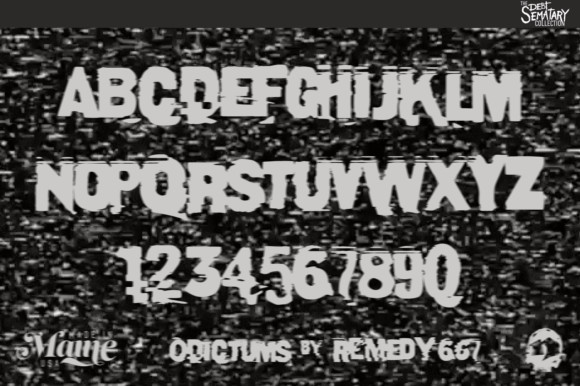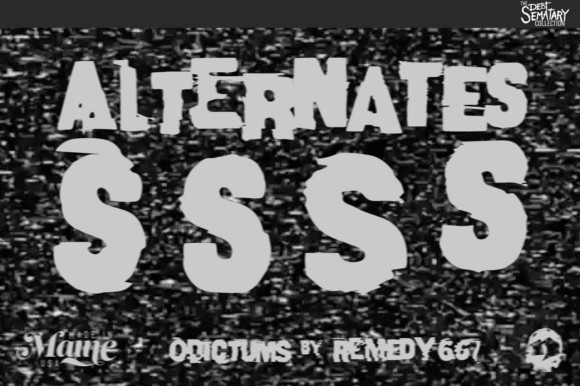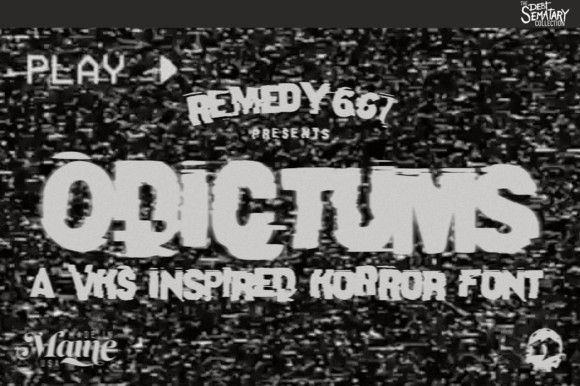
Odictums Font
Odictums is a plain and simple horror font. Odictums is a dedication to staying up late, trying not to wake your parents when you’re watching something you’re not supposed to. It echoes the rolling lines of a VHS tape that’s been worn out from over use… it cuts & sways just a bit to the scrambled signal of PPV. Odictums is a horror font, plain and simple…and that’s all it needs to be.